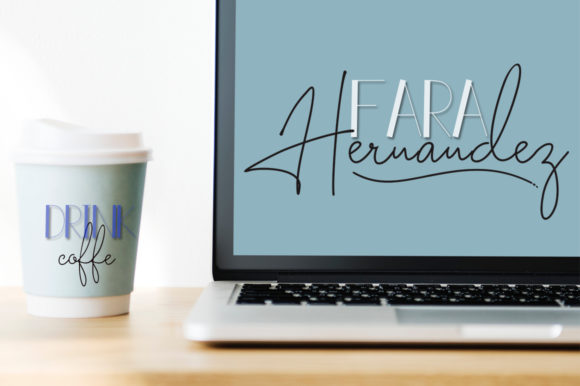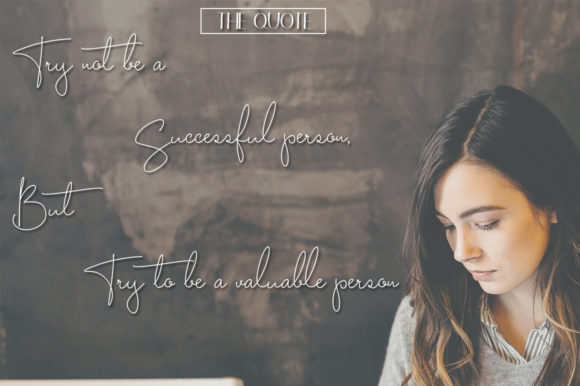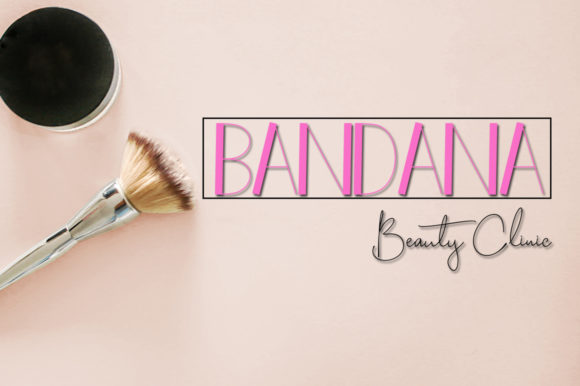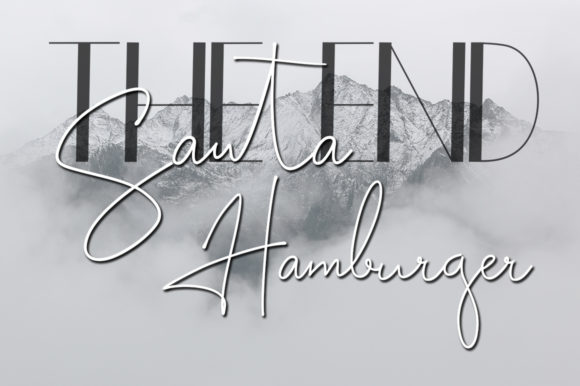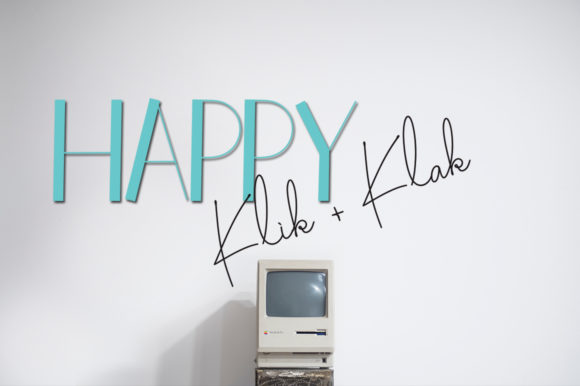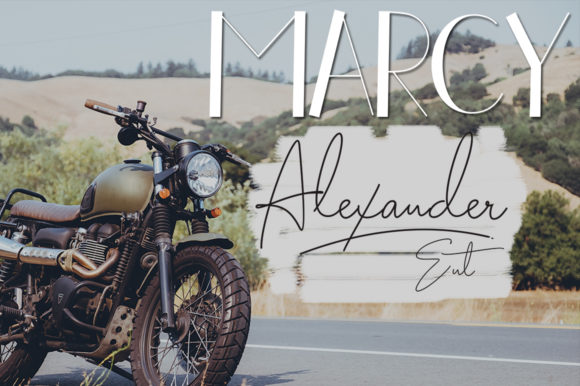
Unleash Your Creativity with Have Fun Sunday Duo Font
Are you a designer, crafter, or DIY enthusiast looking for a unique and stylish font to elevate your projects? Look no further than the Have Fun Sunday Duo Font, a romantic brush font duo that combines contemporary and sophisticated accents. This versatile font duo is perfect for a wide range of creative endeavors, from handmade crafts to digital designs.
What is Have Fun Sunday Duo Font?
The Have Fun Sunday Duo Font is a carefully crafted font duo that consists of two complementary fonts: a regular font and a swash font. The regular font features a beautiful, handwritten script with a smooth and elegant feel, while the swash font adds a touch of sophistication and whimsy with its flowing swashes and flourishes.
Key Features of Have Fun Sunday Duo Font
- Romantic Brush Font Duo: The Have Fun Sunday Duo Font is a romantic brush font duo that features a regular, sans, and swash weight, allowing you to mix and match to create unique and eye-catching designs.
- Contemporary and Sophisticated Accents: This font duo boasts contemporary and sophisticated accents, making it perfect for designers and crafters who want to add a touch of elegance to their projects.
- Perfect Combination: The regular, sans, and swash weights can be combined perfectly, giving you endless possibilities for creative expression.
- Handmade and Digital Friendly: The Have Fun Sunday Duo Font is suitable for both handmade and digital projects, including crafters, planners, journals, and more.
Use Cases for Have Fun Sunday Duo Font
The Have Fun Sunday Duo Font is an incredibly versatile font duo that can be used in a wide range of creative projects, including:
- Handmade Crafts: Use the Have Fun Sunday Duo Font to add a personal touch to your handmade crafts, such as card making, scrapbooking, and DIY home decor.
- Digital Designs: This font duo is perfect for digital designers who want to create stunning graphics, social media posts, and blog headers.
- Planners and Journals: Add a touch of elegance to your planners and journals with the Have Fun Sunday Duo Font.
- Wedding and Event Planning: Use this font duo to create beautiful wedding invitations, party decorations, and event branding.
Why Choose Have Fun Sunday Duo Font?
So, why choose the Have Fun Sunday Duo Font over other font duos on the market? Here are just a few reasons:
- Unique and Exclusive: The Have Fun Sunday Duo Font is a unique and exclusive font duo that will set your designs apart from the rest.
- Easy to Use: This font duo is incredibly easy to use, even for those who are new to designing with fonts.
- High-Quality: The Have Fun Sunday Duo Font is a high-quality font duo that is designed to deliver exceptional results.
Tips and Tricks for Using Have Fun Sunday Duo Font
Here are a few tips and tricks for getting the most out of the Have Fun Sunday Duo Font:
- Experiment with Different Weights: Don’t be afraid to experiment with different weights and combinations of the regular, sans, and swash fonts.
- Add Swashes and Flourishes: Use the swash font to add beautiful swashes and flourishes to your designs.
- Mix and Match with Other Fonts: Try pairing the Have Fun Sunday Duo Font with other fonts to create unique and interesting combinations.
In conclusion, the Have Fun Sunday Duo Font is a versatile and stylish font duo that is perfect for designers, crafters, and DIY enthusiasts. With its romantic brush font style, contemporary and sophisticated accents, and endless possibilities for creative expression, this font duo is sure to become a favorite in your design arsenal. So why wait? Get creative with the Have Fun Sunday Duo Font today!